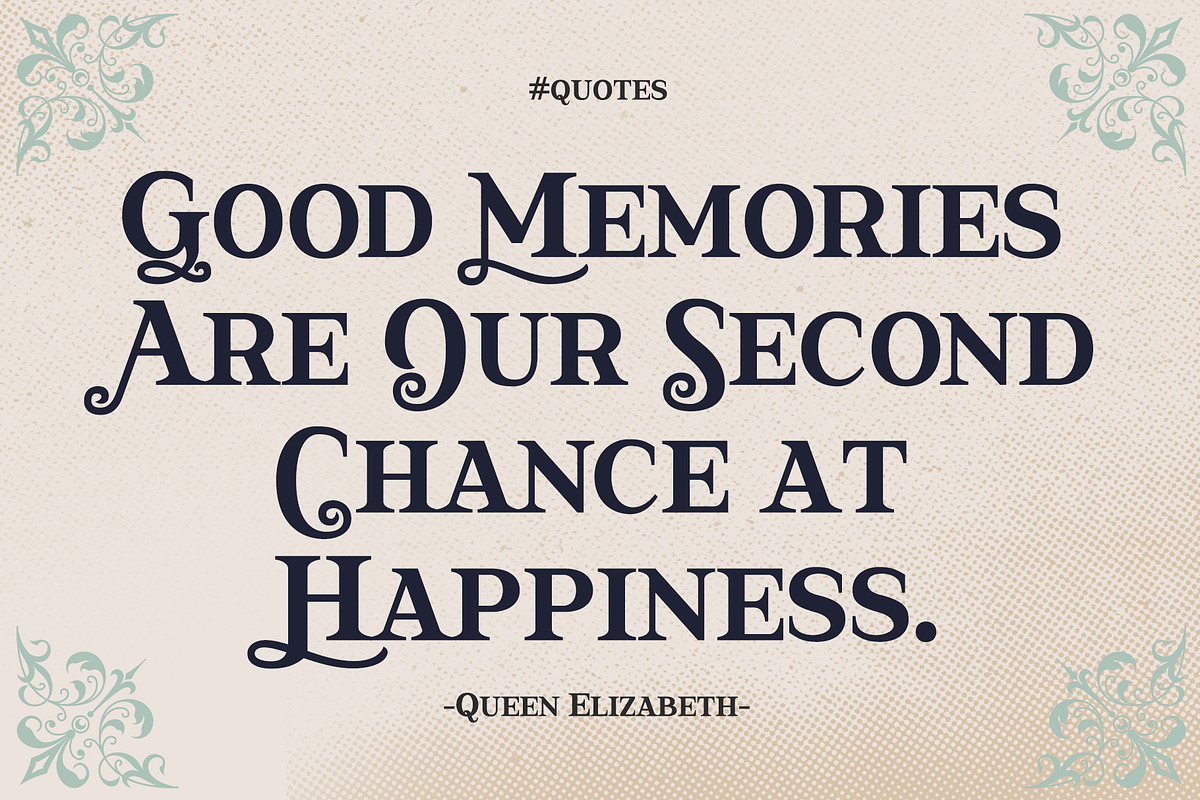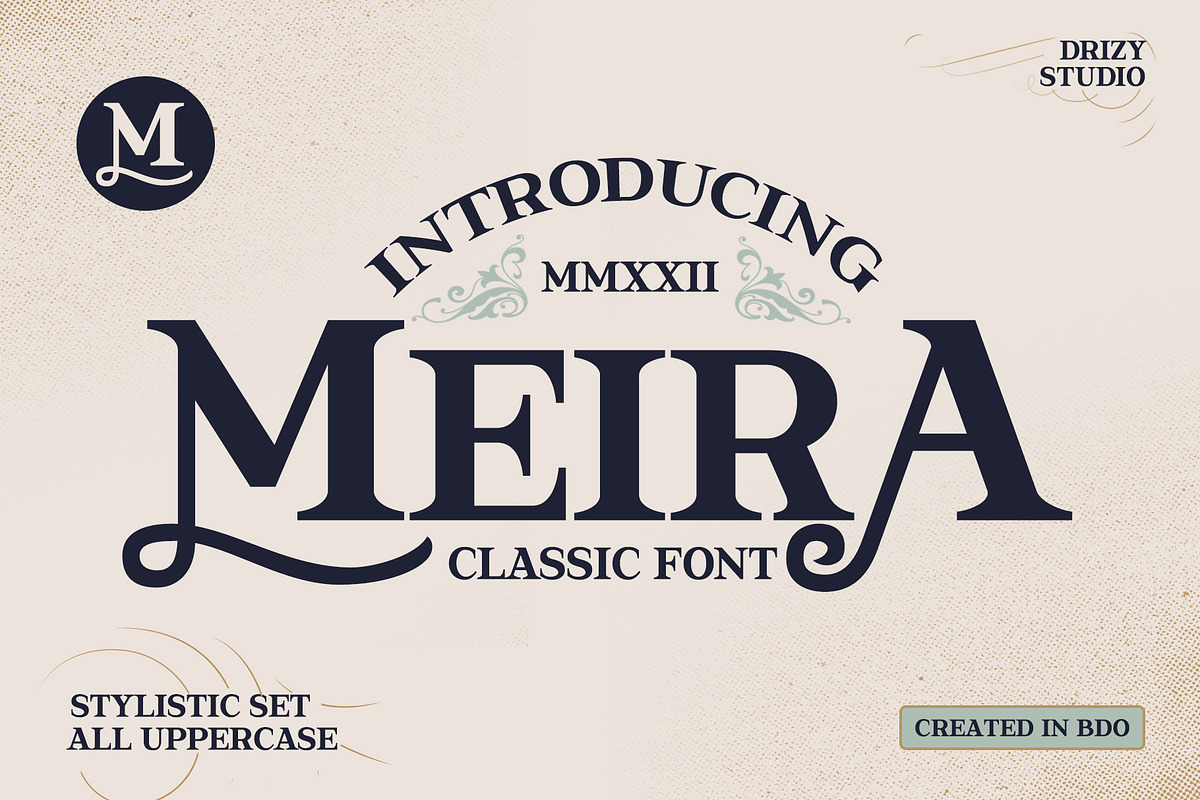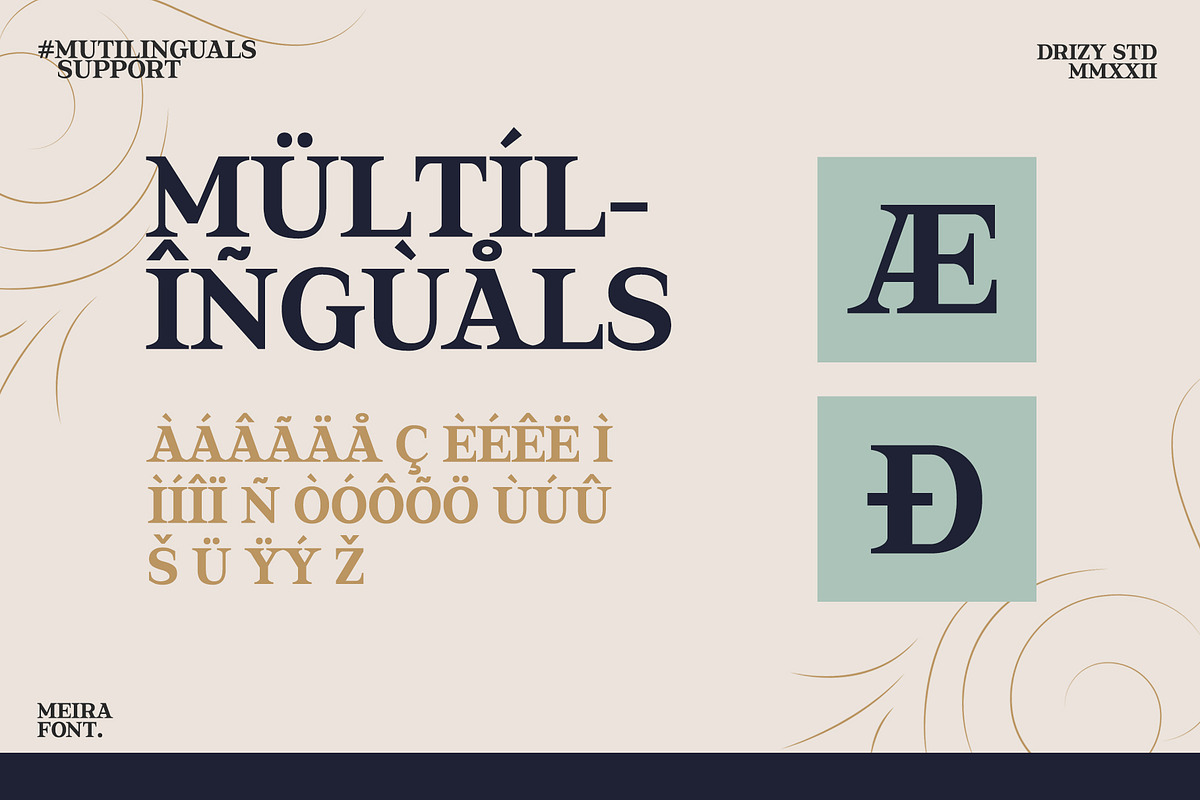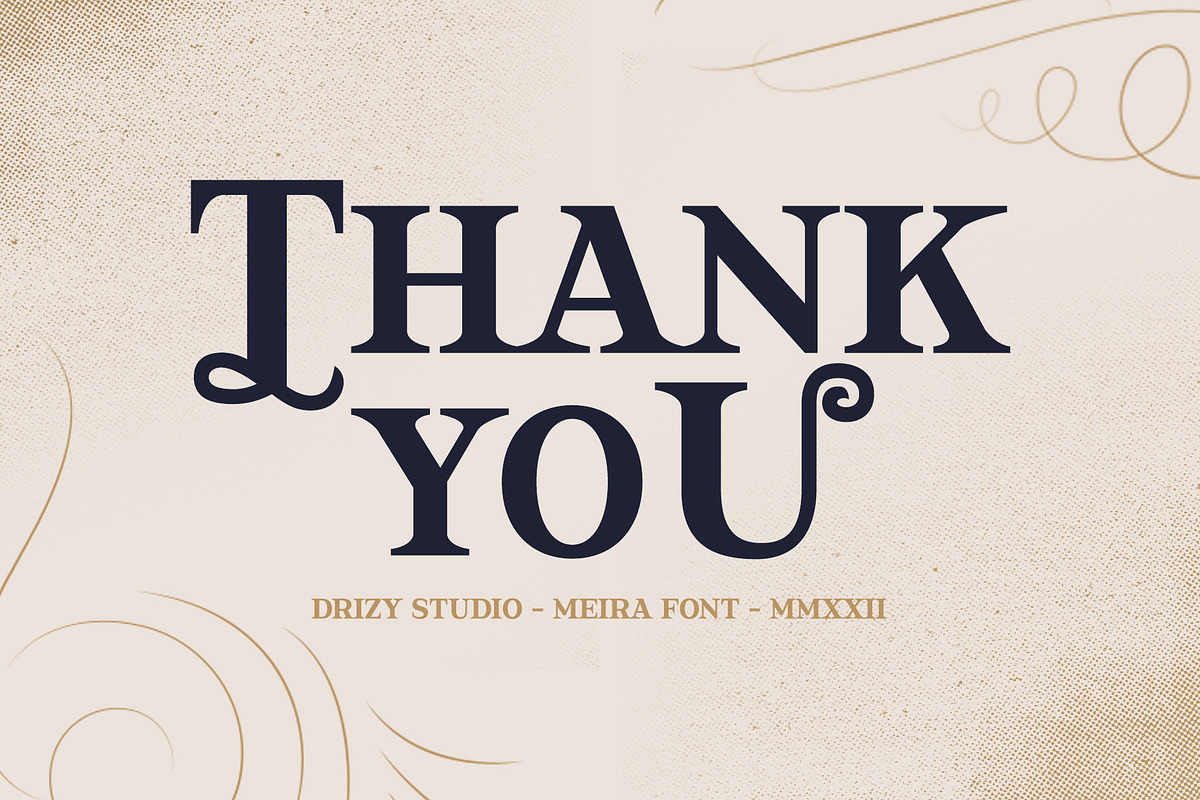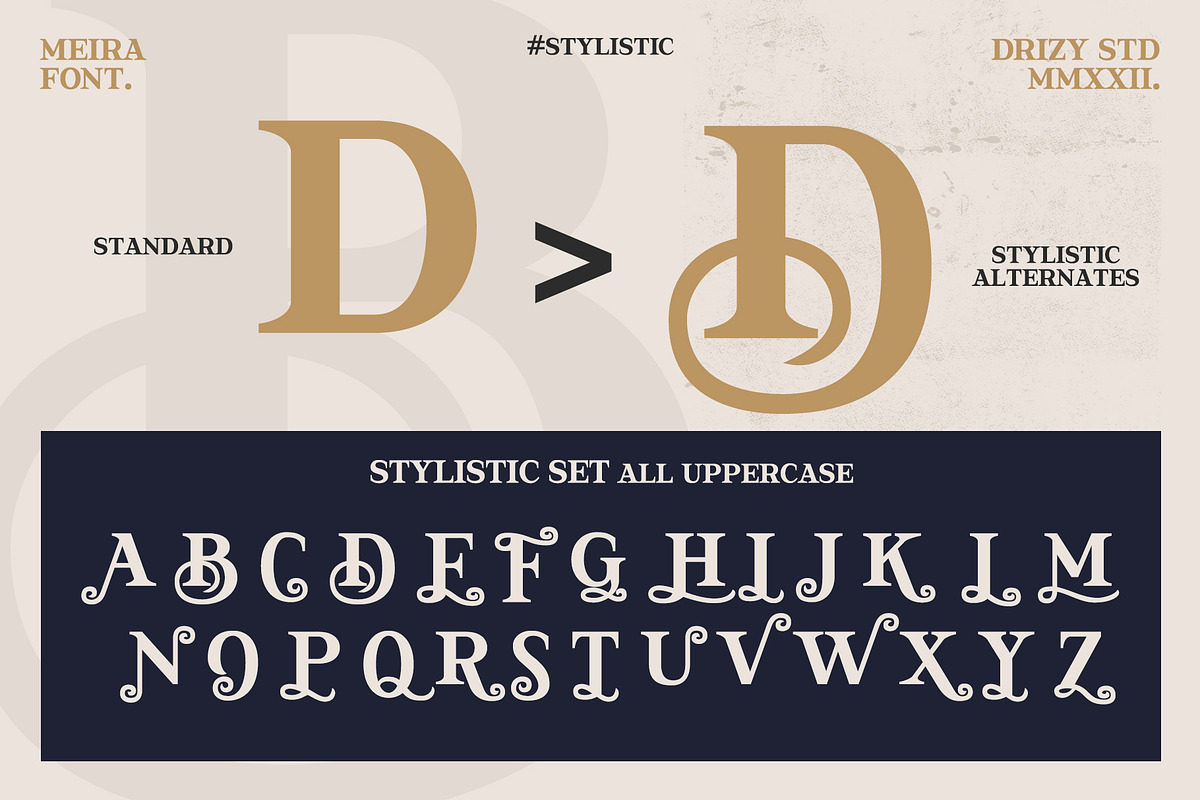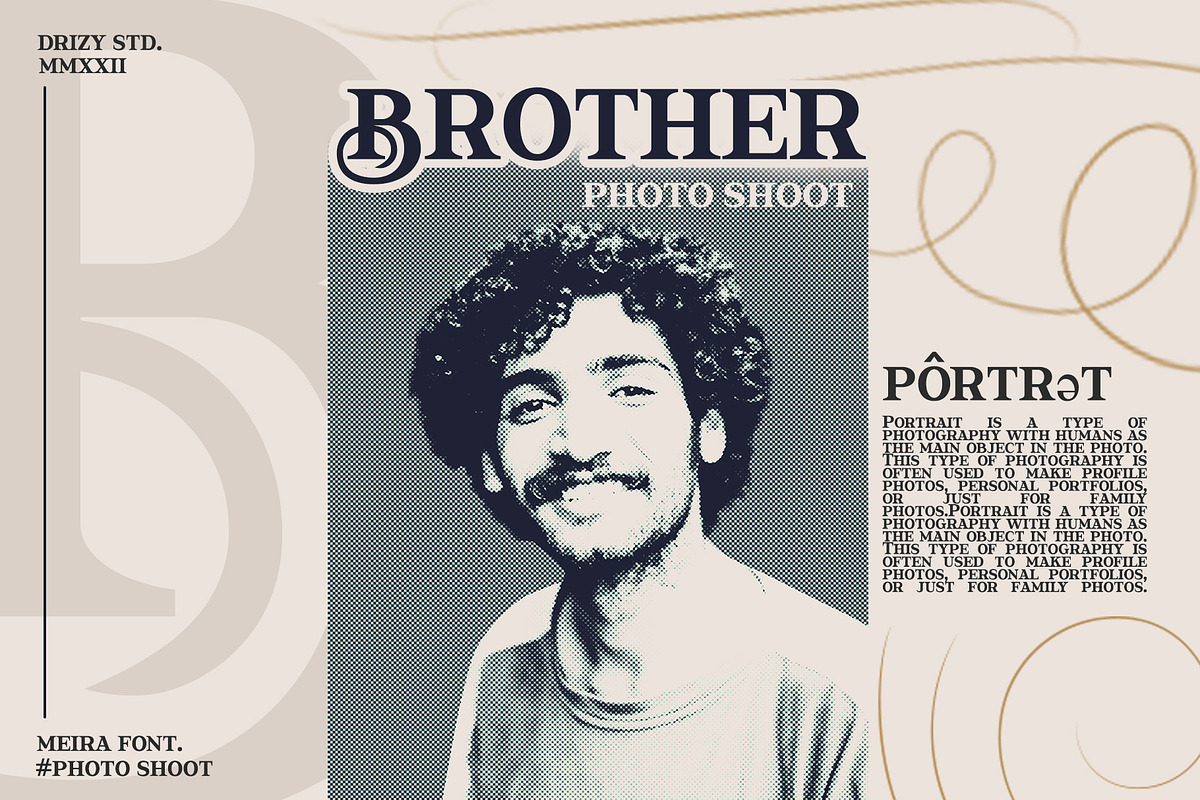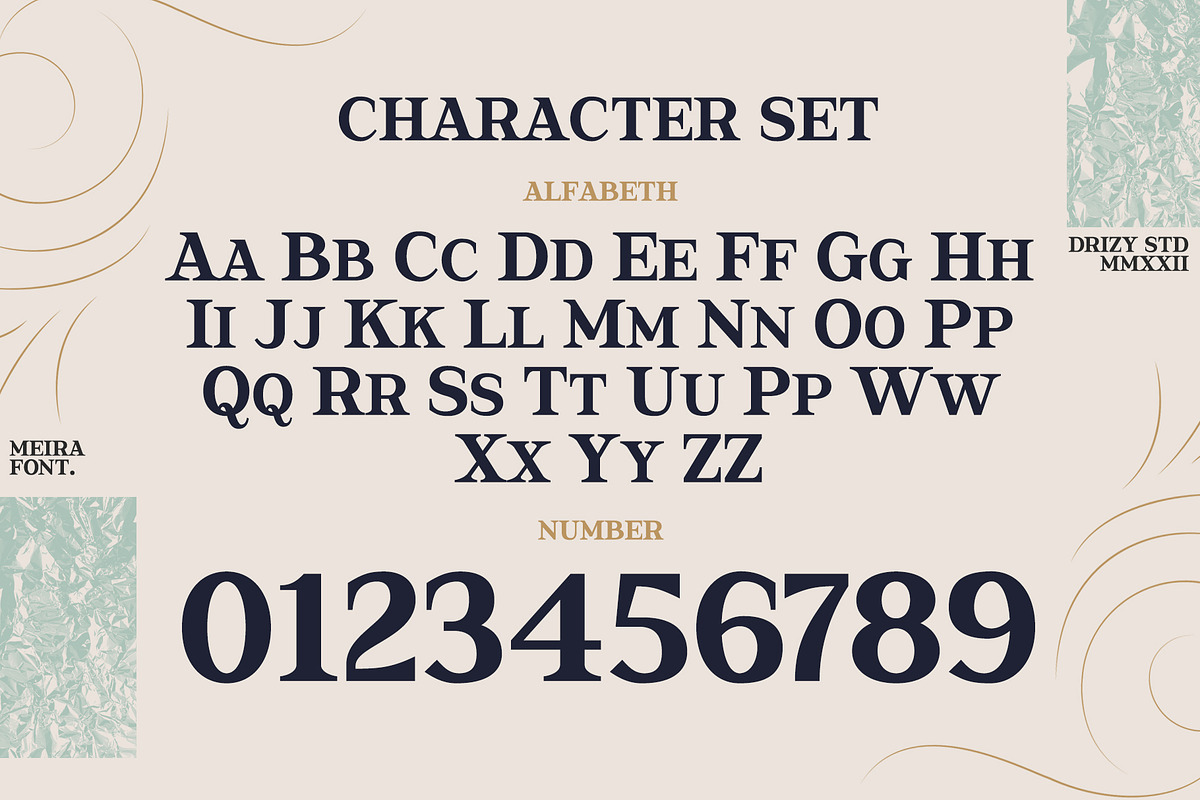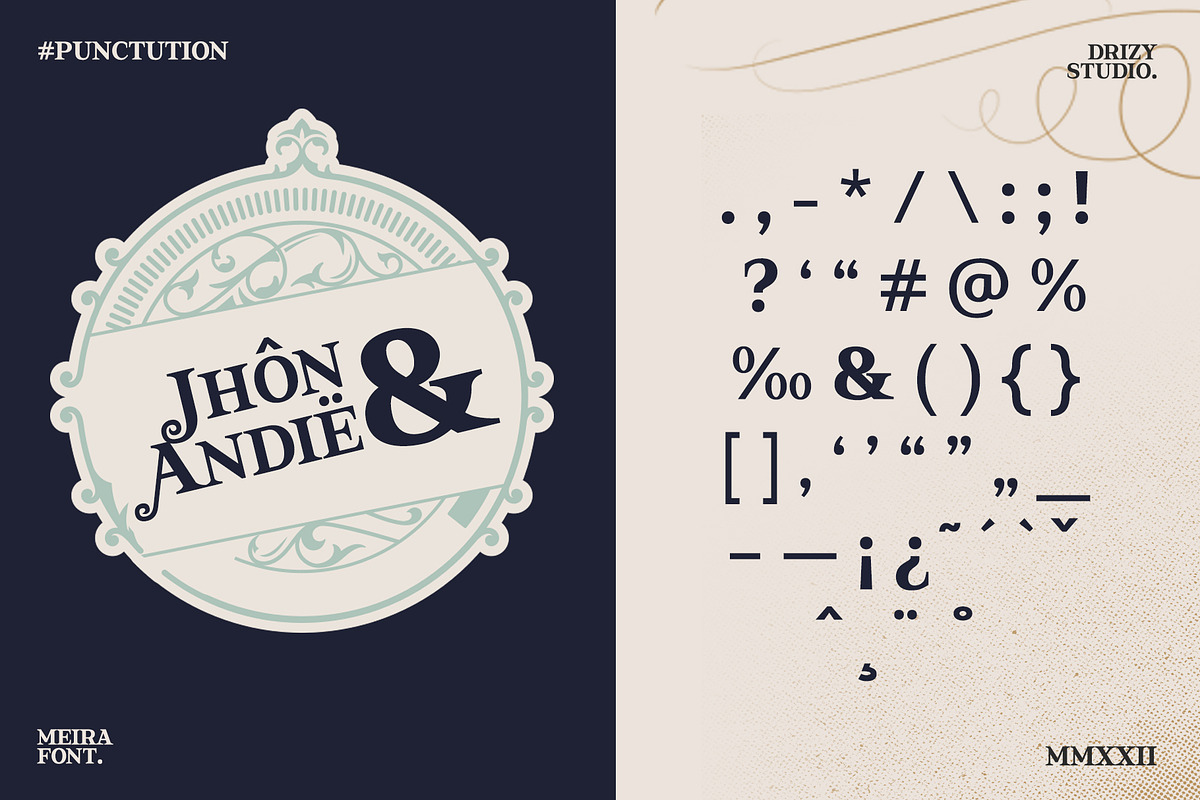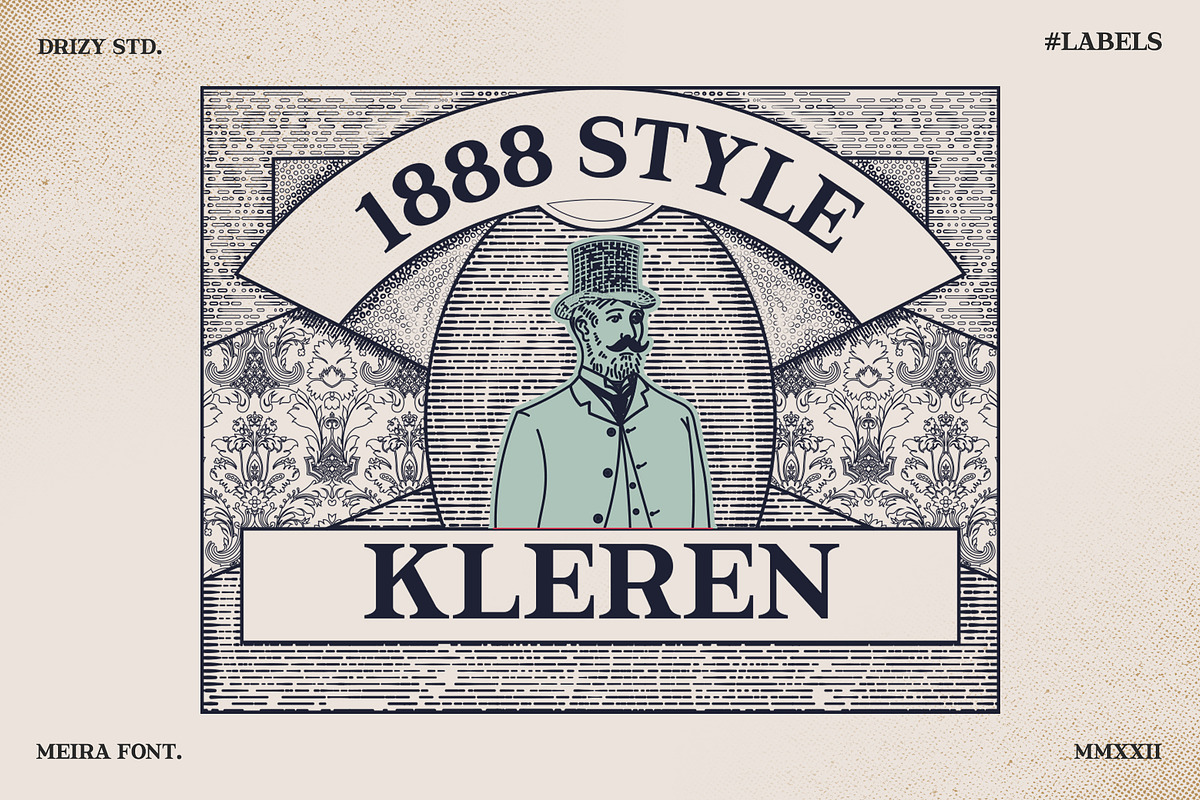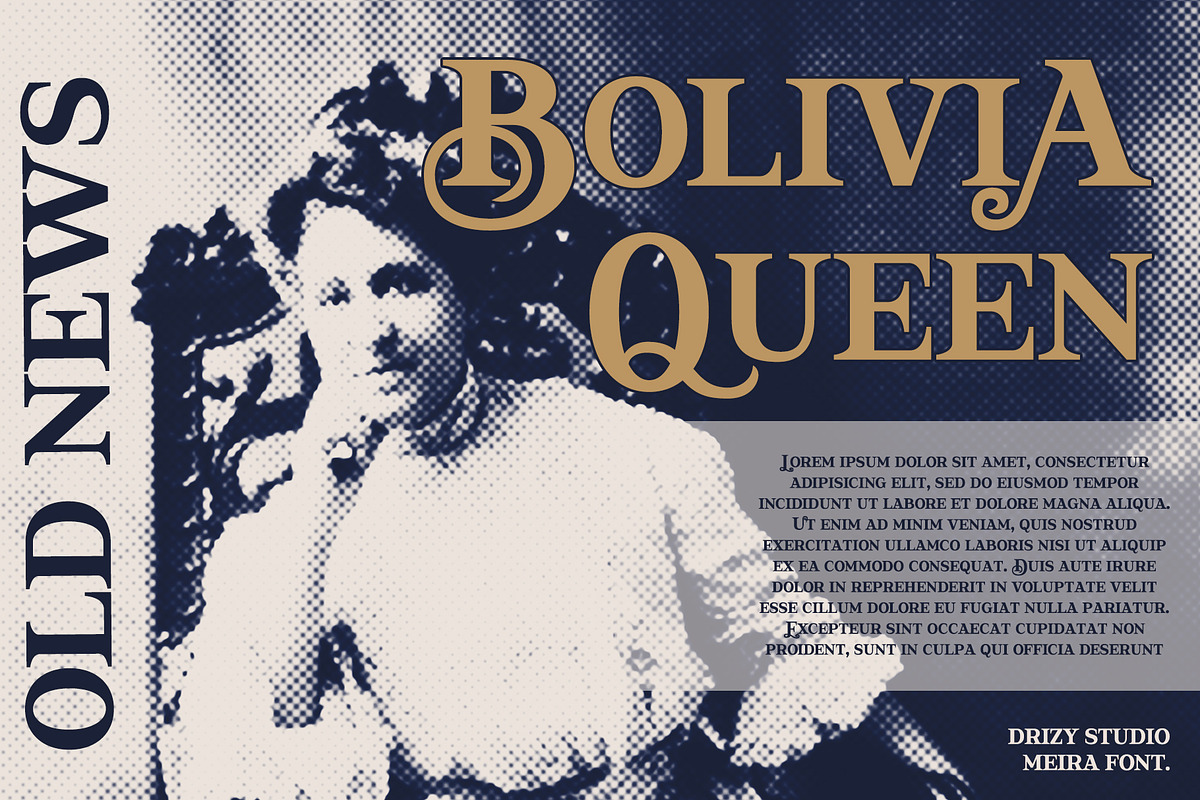
Meira
Introducing Meira! Vintage serif display font from drizy! This classy and vintage all-caps serif typeface. With upper case characters, numbers, multi language, ligature and punctuation. Perfect for gorgeous logos & titles, Meira will pair beautifully with many fonts and work well with whatever project you're working on.